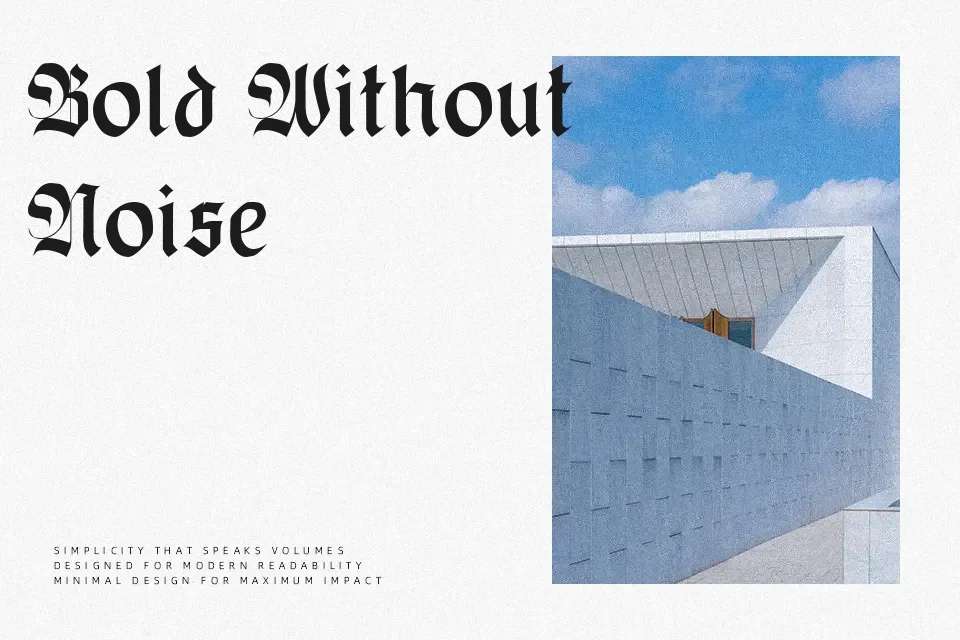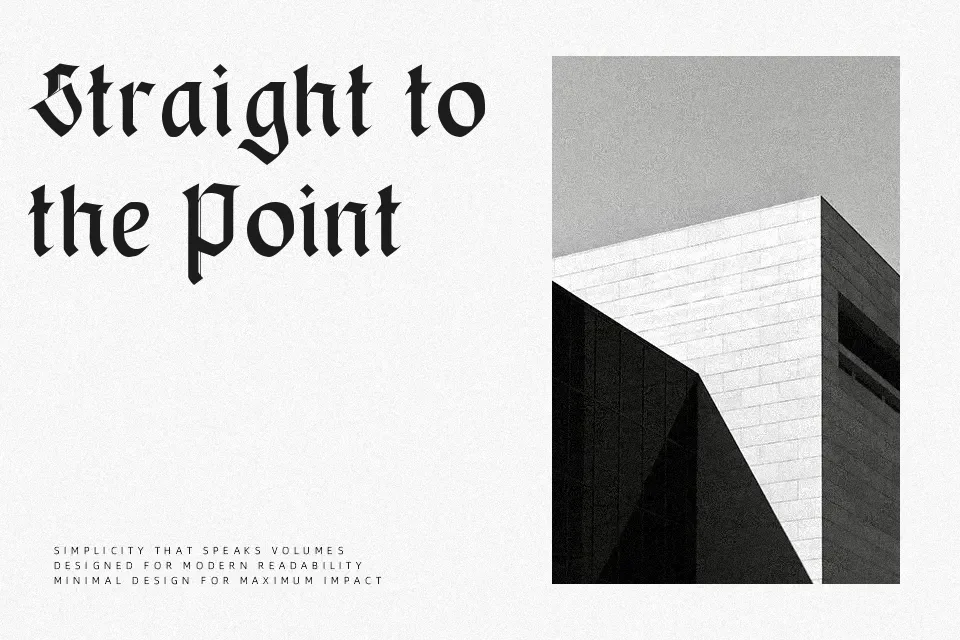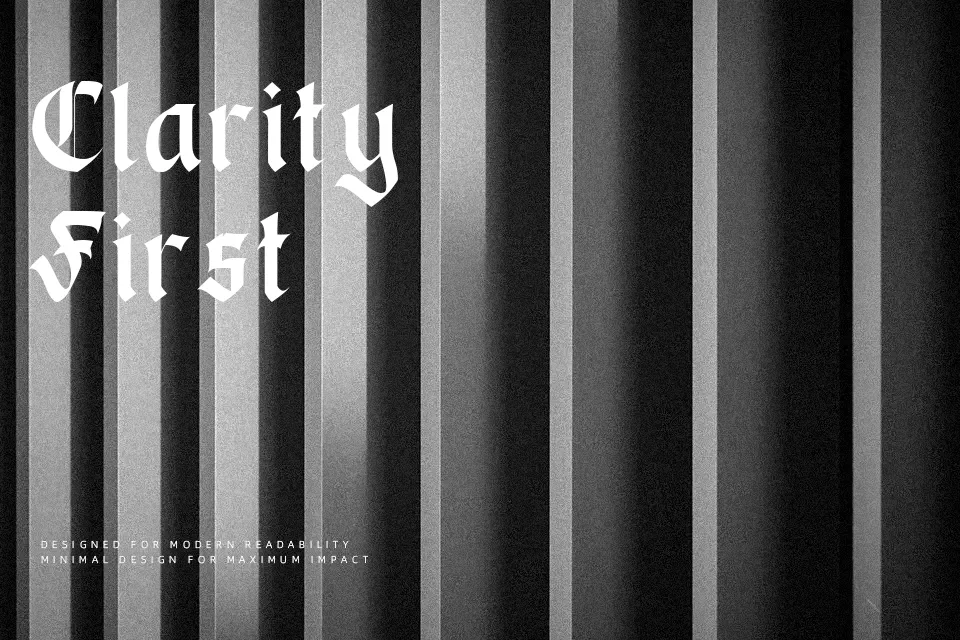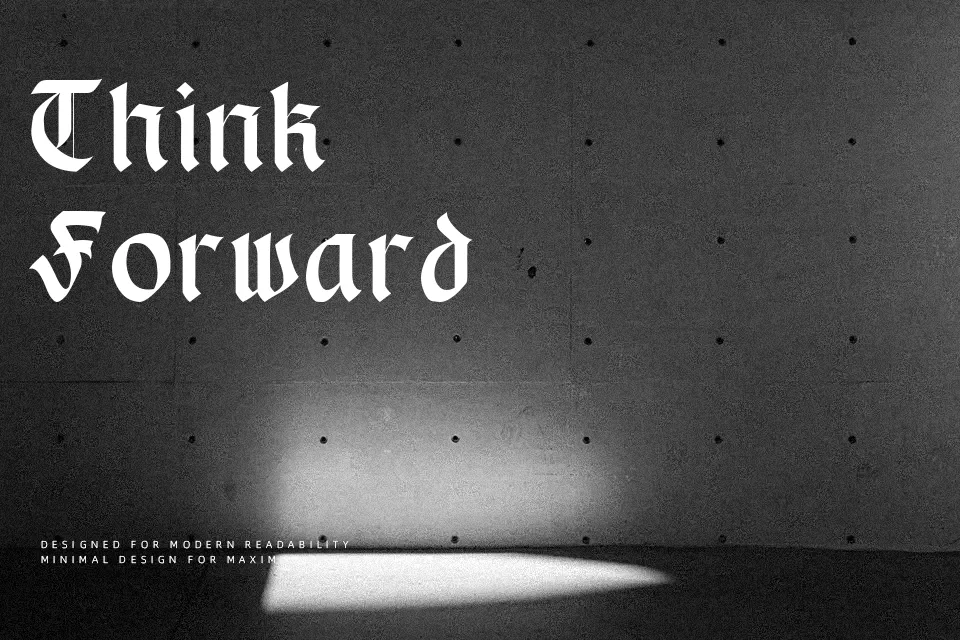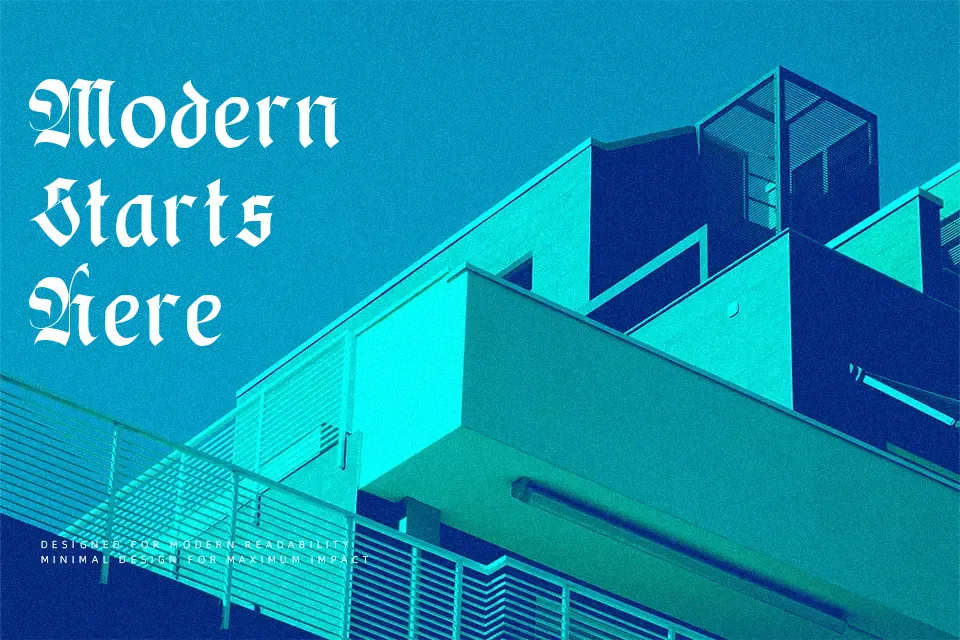
Black Stoner Font
Designed by Kong Font
Black Stoner Font by Kong Font delivers a heavy, edgy take on traditional blackletter typography. Its thick, aggressive strokes and dense letter spacing create a rugged, rock-meets-horror aesthetic. The font projects a dramatic mood, bringing a raw, gothic energy to any canvas. This typeface shines when applied to band merchandise, horror event titles, and tattoo parlor branding. Its intense visual weight easily commands attention on large-scale posters and striking headlines. However, the heavily stylized letterforms significantly reduce legibility in smaller formats, meaning it performs poorly for body text or clean corporate UI design. Compared to classic blackletters, Black Stoner feels more rebellious, leaning heavily into a grunge-inspired subculture style.
– Edgy music merchandise and album artwork
– Large-scale event posters and headlines
– Dark-themed branding for tattoo studios
– Long paragraphs of body text
– Corporate or professional presentations
– Minimalist user interface design
Perfect for halloween, headline, and logo, with a bold and blackletter style.